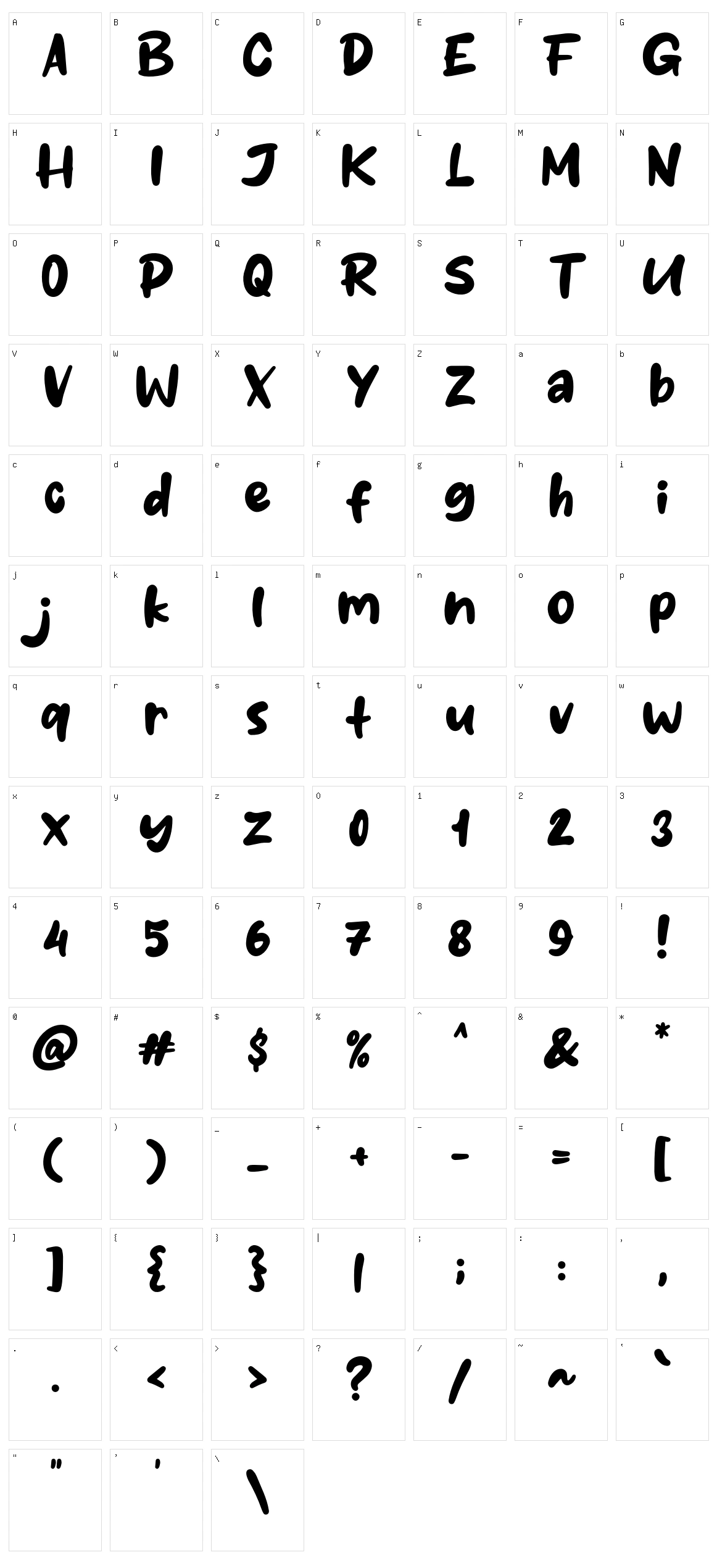
The free font Maybe Coffee is carefully designed by Khurasan, showcasing a thoughtful balance of creativity and usability and falls under the Cartoon font style. When you download the ZIP file, it contains only 270.19 KB of font files, making it lightweight and quick to download. Please review the license details below to understand permitted usage and distribution rights. If license information is not available, we recommend using this font for personal projects only or contacting the author directly for commercial usage permissions.